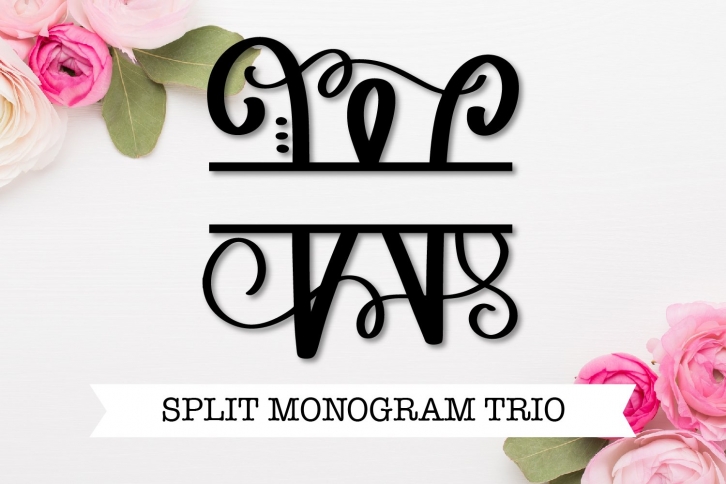
Split Fancy Monogram Trio is a great font that was designed by Justina Tracy. Imagine the amount of combinations you can create using this font! The archive is 1.40 MB and it was released on August 3, 2020. Split Fancy Monogram Trio looks beautiful on wedding invitations, greeting cards, logos, posters, labels, t-shirt designs, logos, business cards and is perfect for use in ink or watercolor works, fashion, magazines, packaging and food menus, children's books and more!